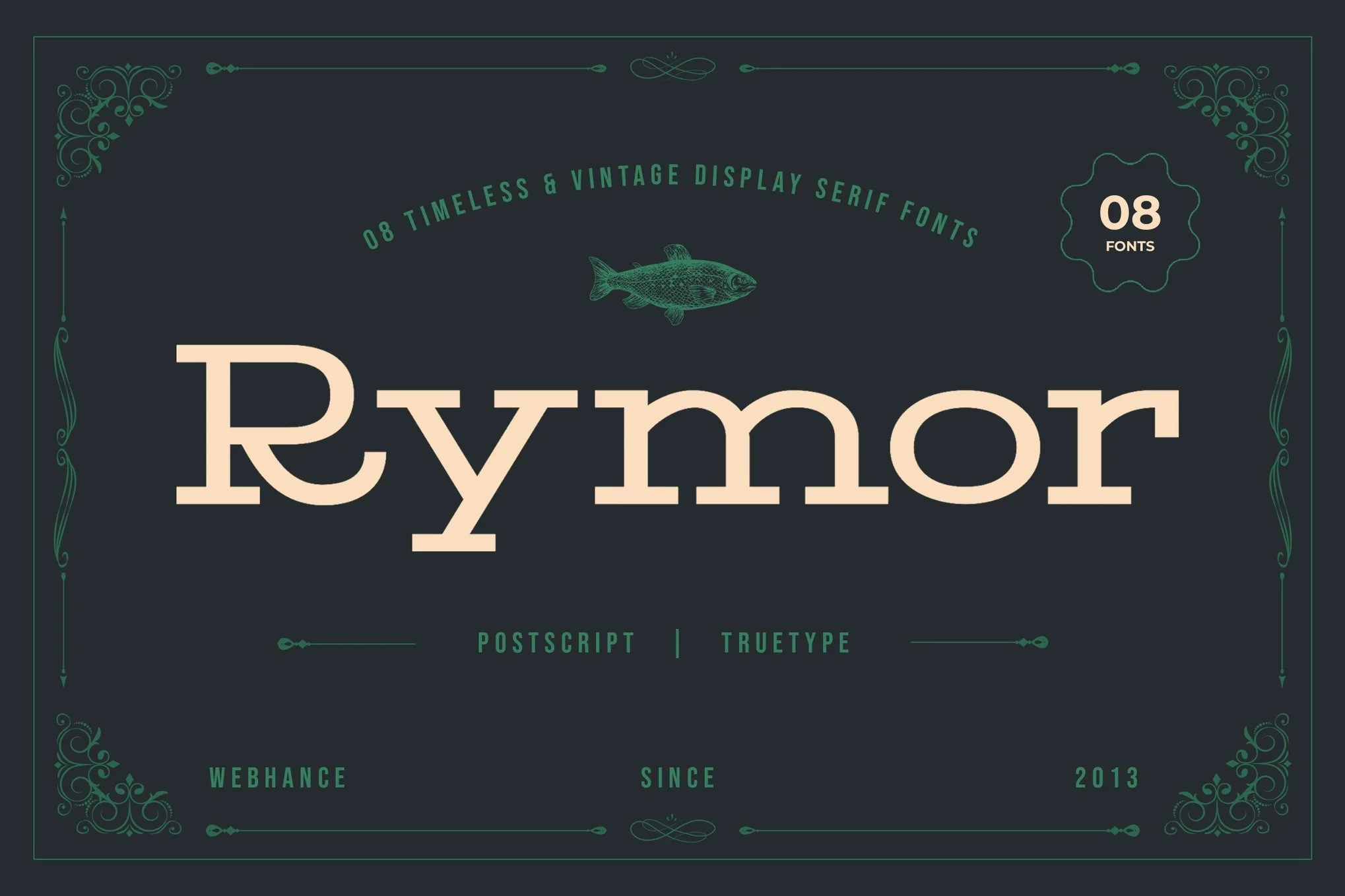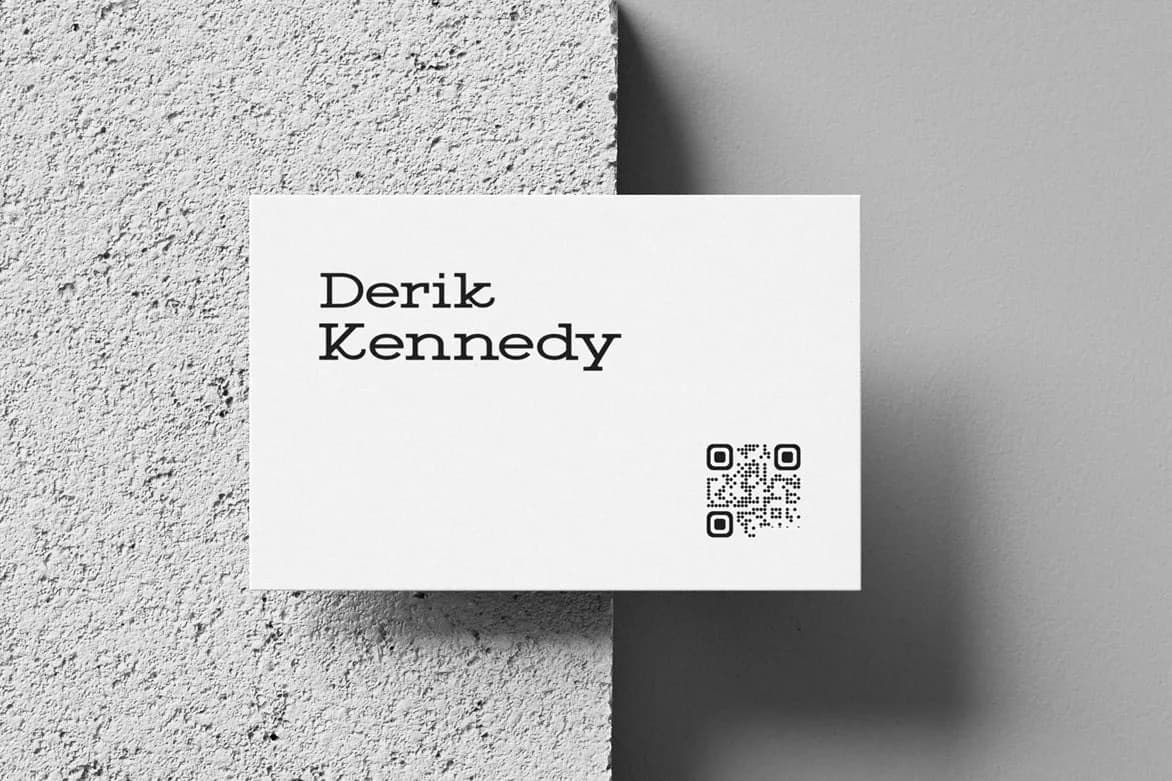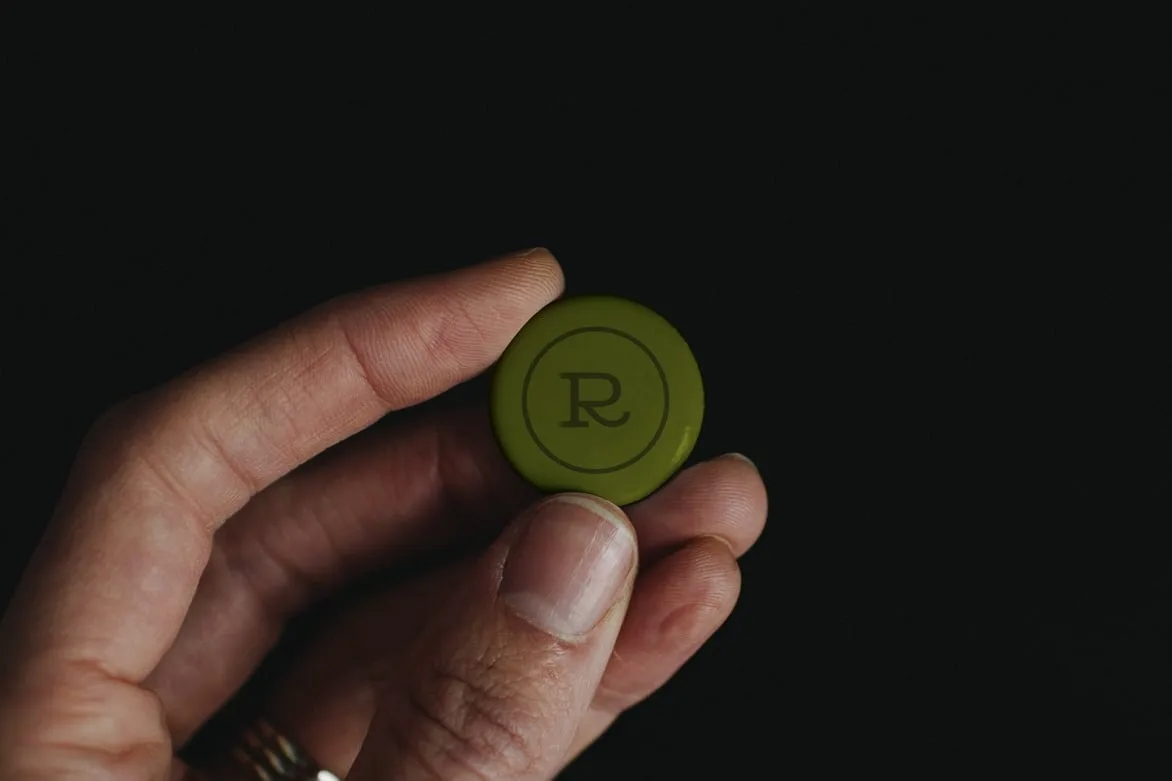
Rymor
0Rymor, a sophisticated serif font, captures the essence of vintage aesthetics while offering a modern twist. Designed with a focus on legibility and distinctive character, its well-balanced geometry and thoughtful contrast make it a standout choice for display purposes. The slightly rounded edges and classic letterforms provide an inviting feel, perfect for projects that aim to evoke nostalgia and charm.
This font excels in a variety of contexts, particularly in branding and packaging for boutique products, such as artisanal spirits and handcrafted goods. Rymor’s unique style makes it well-suited for logo design, where it can impart an air of authenticity and tradition. In addition, its application in editorial layouts and magazine spreads allows for visually engaging compositions that draw the reader’s attention. Whether used for bold headlines or elegant signage, Rymor’s retro flair enhances the overall design narrative, offering a touch of sophistication.
With support for Latin languages and finely tuned kerning, Rymor performs exceptionally well in both print and web environments. Its adaptability makes it a valuable addition to any designer's toolkit, ensuring that it meets the demands of modern digital products without sacrificing its classic appeal. When you're looking to create a timeless aesthetic with a contemporary feel, Rymor is the font that can elevate your project to new heights.